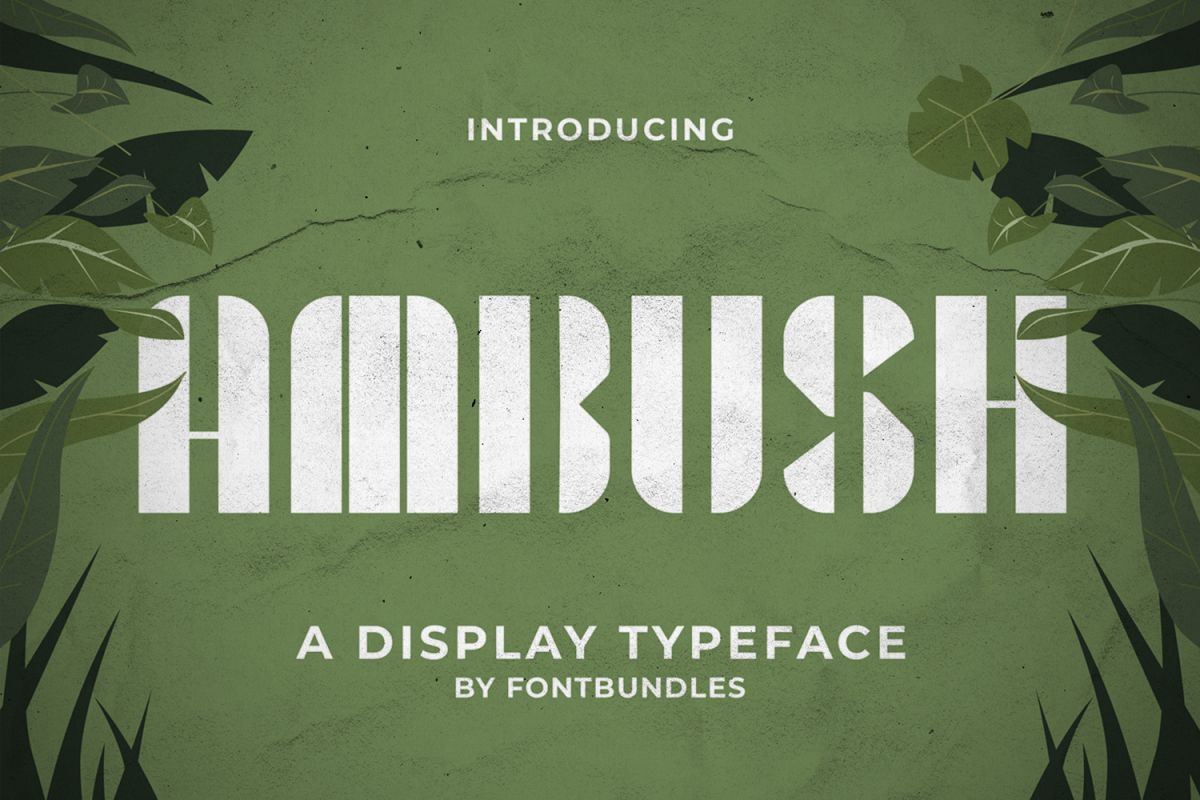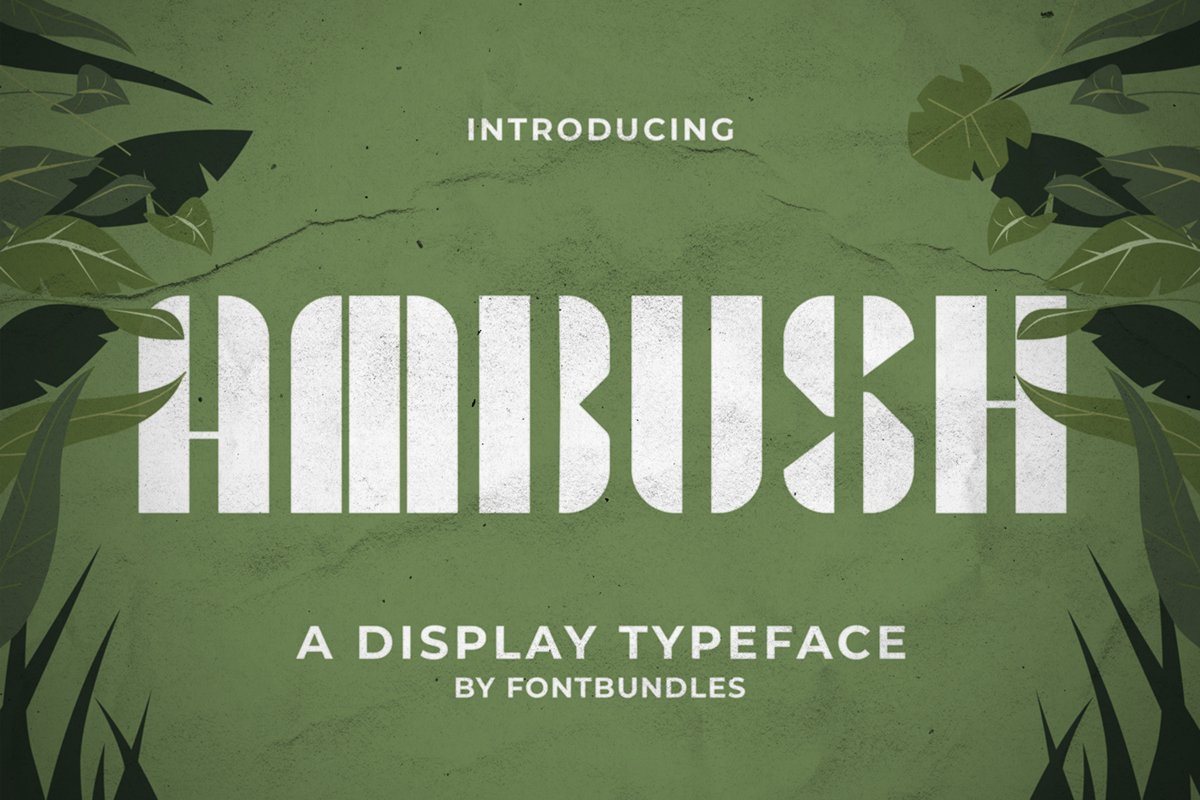
Ambush is a display typeface. perfect for badges, apparel design, packaging, headline, header, tittle, magazine, or any project that needs a typography.